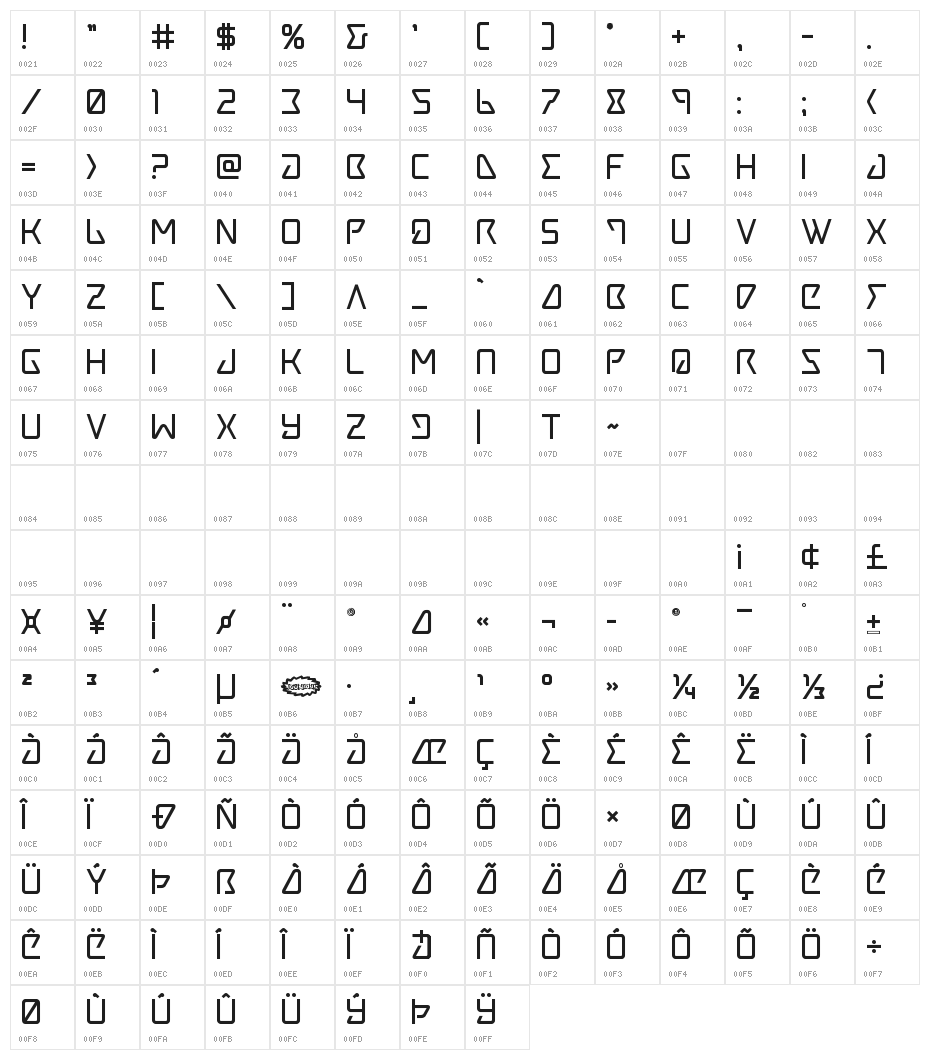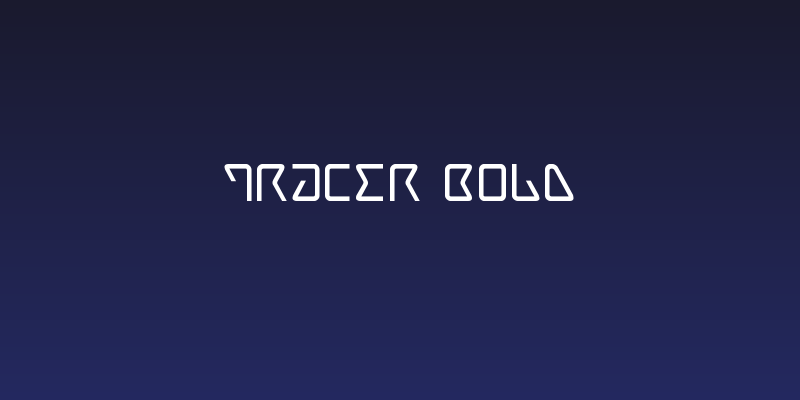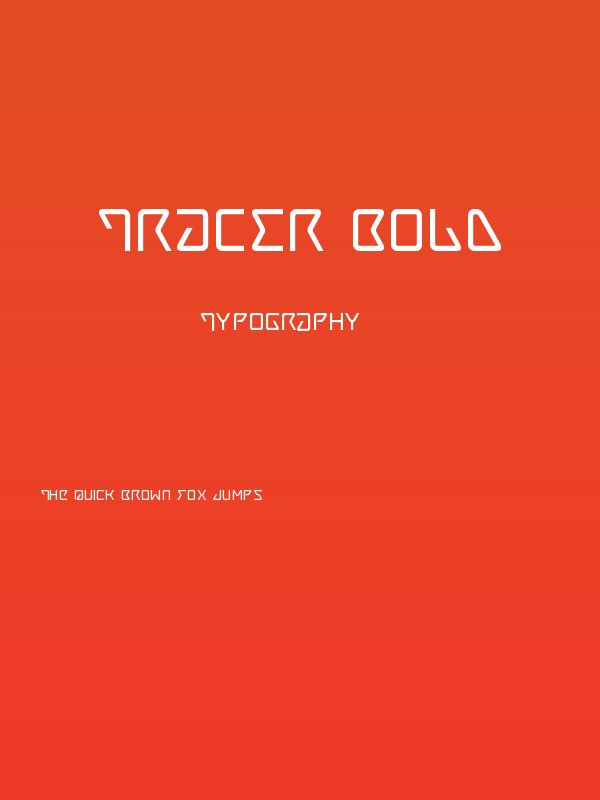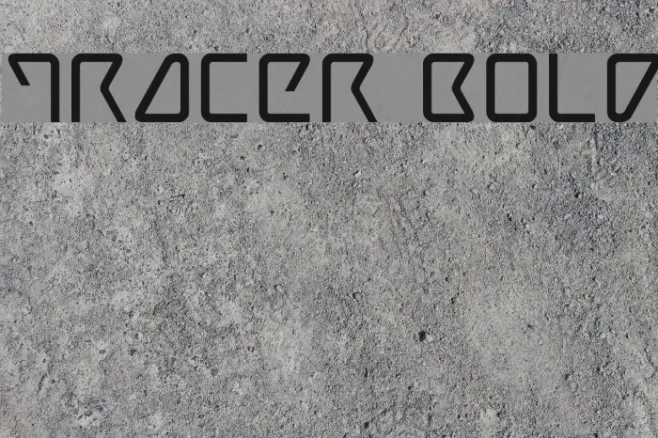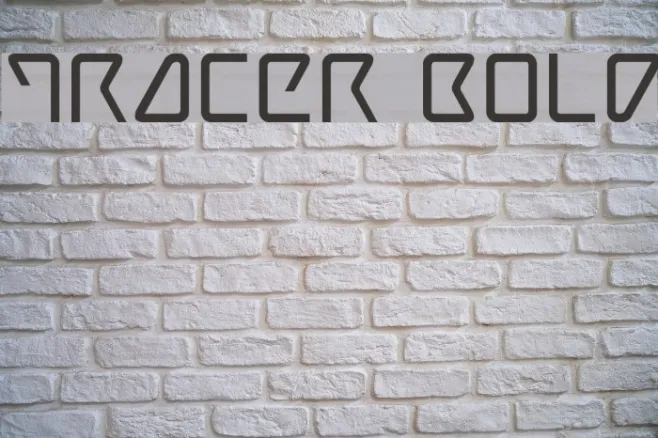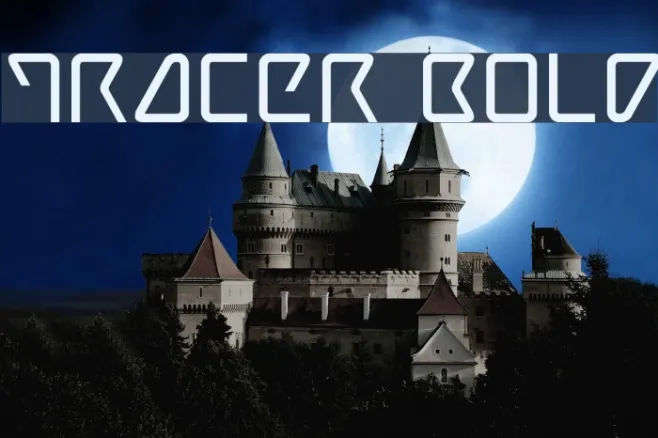
Tracer Bold Font
Tracer Bold Description
This font features a futuristic and geometric design, characterized by its angular and sharp edges. The letters are constructed with a consistent stroke width, giving it a bold and uniform appearance. The uppercase and lowercase letters share a similar structure, enhancing the font's cohesive look. The numbers and special characters maintain the same angular style, ensuring a seamless integration across different text elements. Its distinct and modern aesthetic makes it suitable for projects that require a contemporary and tech-inspired feel.
| Proposed Projects | Ideal for technology branding, sci-fi themed designs, video game interfaces, and modern advertising campaigns. |